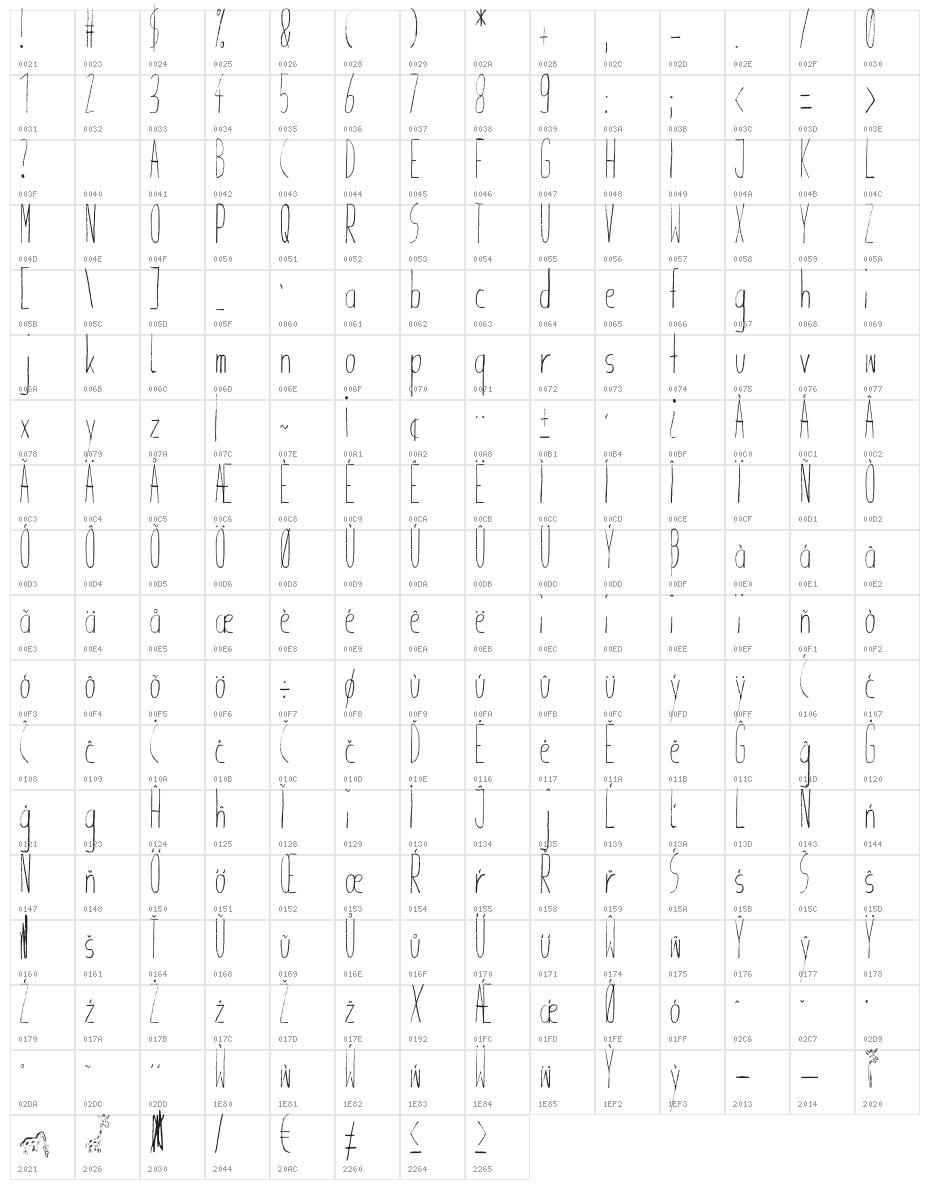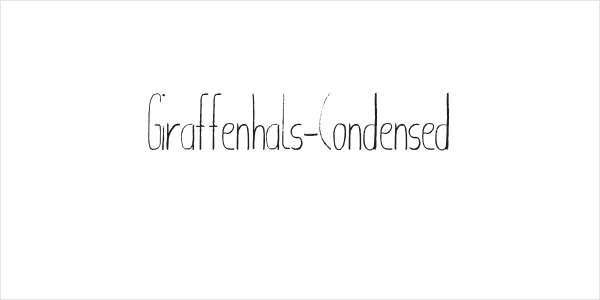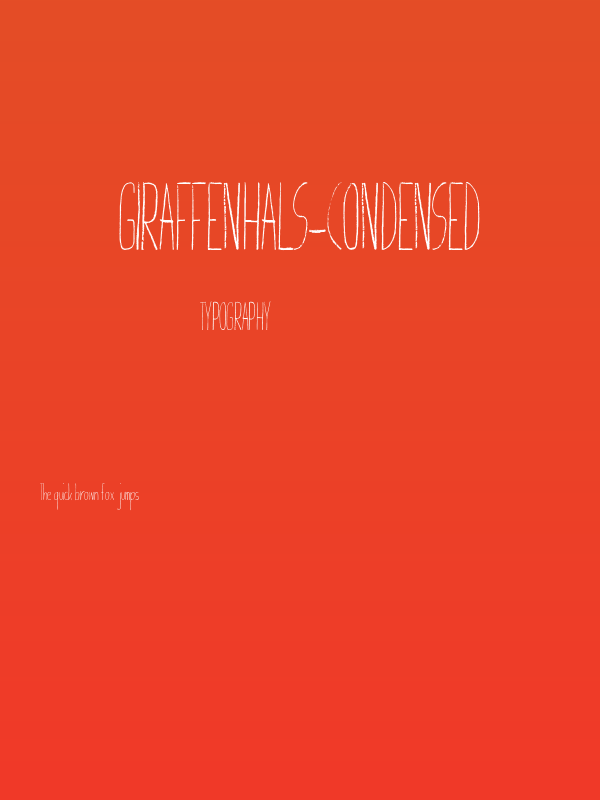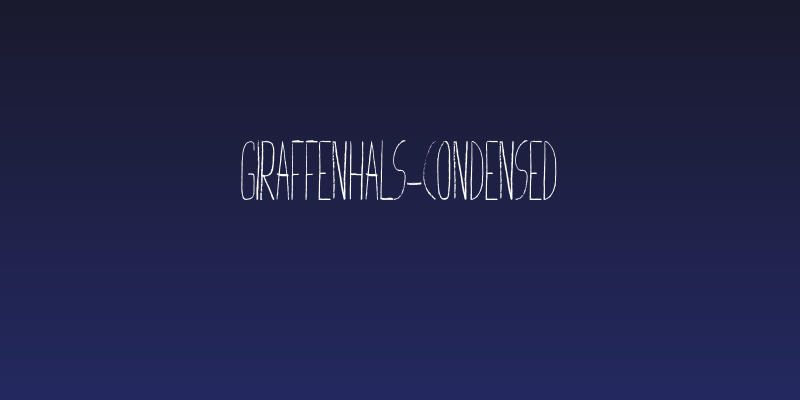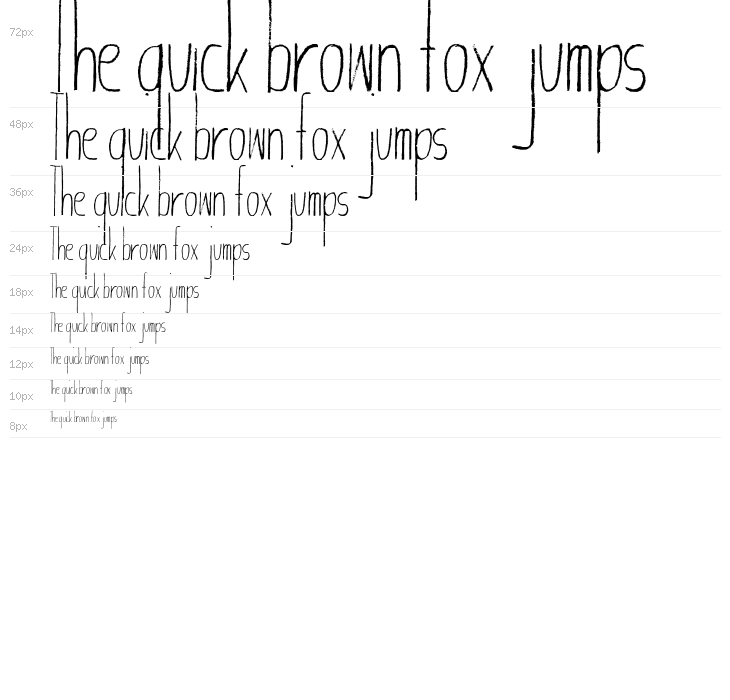
Giraffenhals-Condensed Font
Giraffenhals-Condensed Description
This font features an extremely tall and narrow design, giving it a distinctive and striking appearance. The characters are elongated with a condensed width, creating a unique vertical emphasis. The strokes are thin, contributing to a light and airy feel, while maintaining a consistent line weight throughout. The font's overall aesthetic is modern and avant-garde, making it suitable for creative and artistic projects. Its unusual proportions make it stand out, offering a fresh take on traditional typefaces.
Use CaseHeadlines, Artistic projects, Branding
Proposed ProjectsIdeal for artistic posters, modern branding, avant-garde designs, and creative headlines.